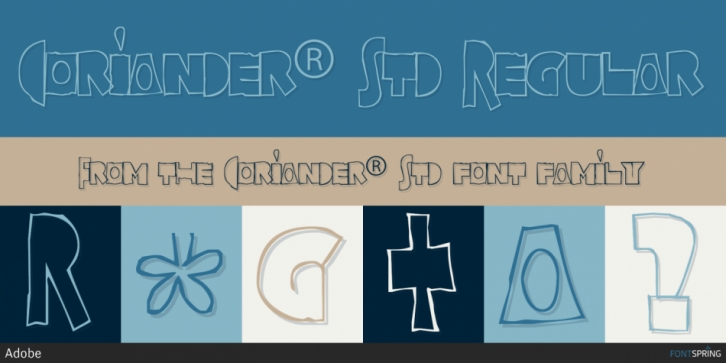
Coriander started out as a doodle one afternoon when type designer and handwriting expert Tim Donaldson was bored and uninspired. He wrote the word “Coriander†and then was distracted by the sun beating through an adjacent window. So he taped the writing paper up on the window to block the glare. It stayed there for about three months until he took it down one day, folded it up, and stuck it in his pocket. About a week later the piece of paper fell out of his pocket and he was prompted to draw the rest of the characters (two alphabets) in his sketchbook. The final digitized characters were created by Donaldson using a Wacom tablet and later refined on the screen.